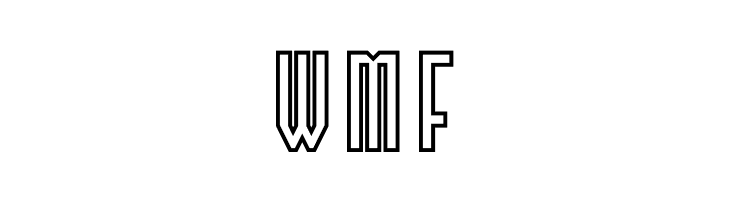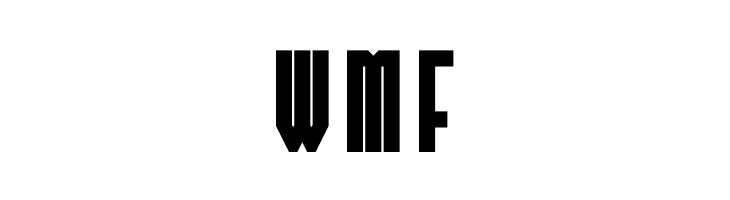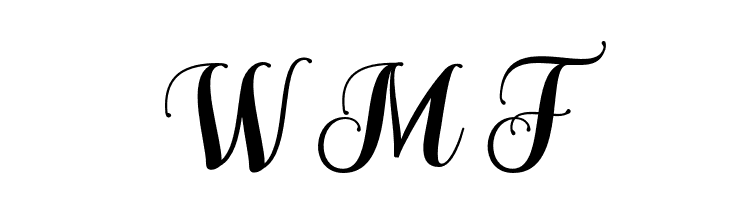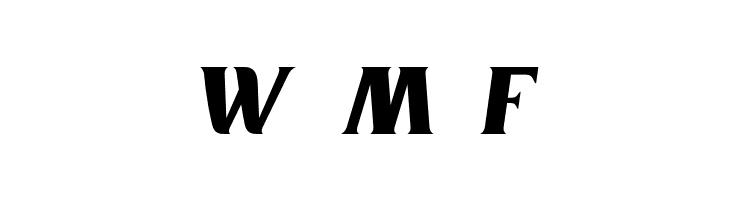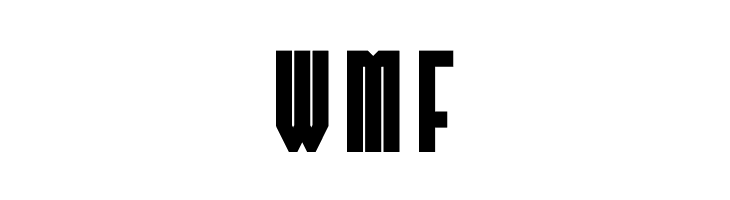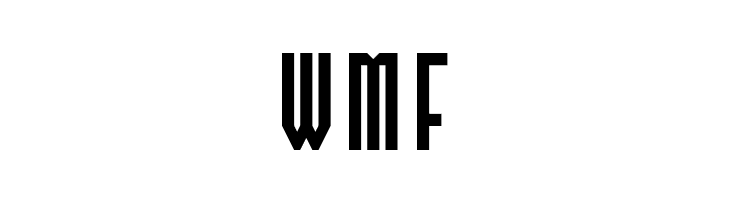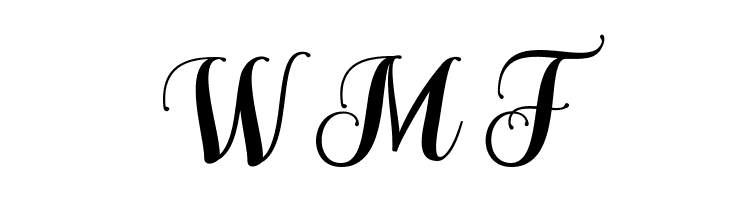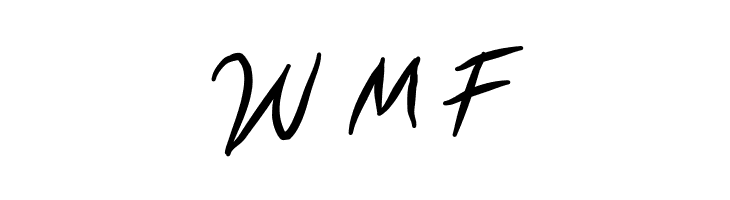
Expressive handwritten script with energetic, casual strokes.
A bold, geometric font with sharp angles and a strong presence.
A bold, condensed font with geometric shapes and sharp angles for a modern look.
A bold, outlined geometric font with a modern and edgy style.
A bold, geometric font with a modern, retro-futuristic style.
A bold, condensed font with a modern, geometric style.
A bold, brush-style font with an expressive and dynamic appearance.
A bold, italicized serif font with a modern yet classic style.
An elegant script font with high contrast and ornate flourishes.
An elegant script font with flowing, cursive style and intricate flourishes.